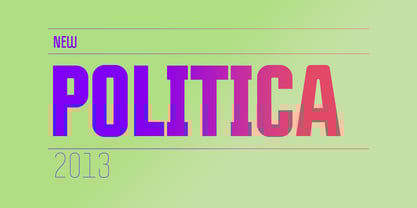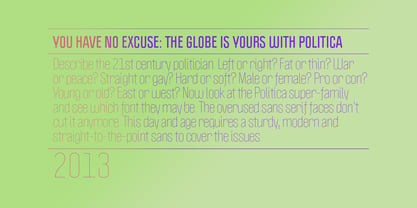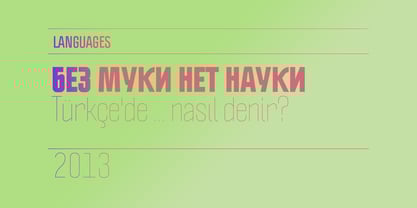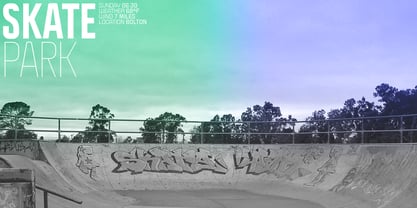
Politica
par Sudtipos
Politica Font la famille était conçu par Alejandro Paul et publié par Sudtipos. Politica contient 36 styles et des offres familiales.
Describe the 21st century politician. Left or right? Fat or thin? War or peace? Straight or gay? Hard or soft? Male or female? Pro or con? Young or old? East or west? Now look at the Politica super-family and see which font they may be. The overused sans serif faces don’t cut it anymore. This day and age requires a sturdy, modern and straight-to-the-point sans to cover the issues. The Politica family also come in OpenType variations which extend the character set to include Cyrillic, Greek, Baltic, Turkish and Central European languages. You have no excuse: the globe is yours with Politica.
Sudtipos is a new collective Argentinian type foundry. New blood, new attitude. A joint venture of four professional designers with lots of expertise in different areas like branding, packaging design, corporate identity, television and new media. “The foundry, or collective as we prefer to designate it, started because of that — packaging, editorial or brand designers making fonts for real designers” Alejandro Paul, one of the company’s founders, said in his Creative Characters interview. Alejandro “Ale” Paul made a name for himself drawing and programming some of the most intricate script fonts ever digitized. “My experience in branding product packaging was a natural catalyst for me to be interested in scripts and seek like-minded people for the collective.” The collective’s bestselling scripts include Bowling Script, Horizontes Script and Hipster Script Pro, which was named one of MyFonts’ most popular fonts of 2012, and was recognized by both Typographica and Type Directors Club that same year. “Our aim is to always be graphic designers making typefaces for graphic designers,” Ale said. “We try not to lose that particular focus. We’re always thinking about how to make a graphic designer’s work easier when it comes to using the type element in his or her design.”